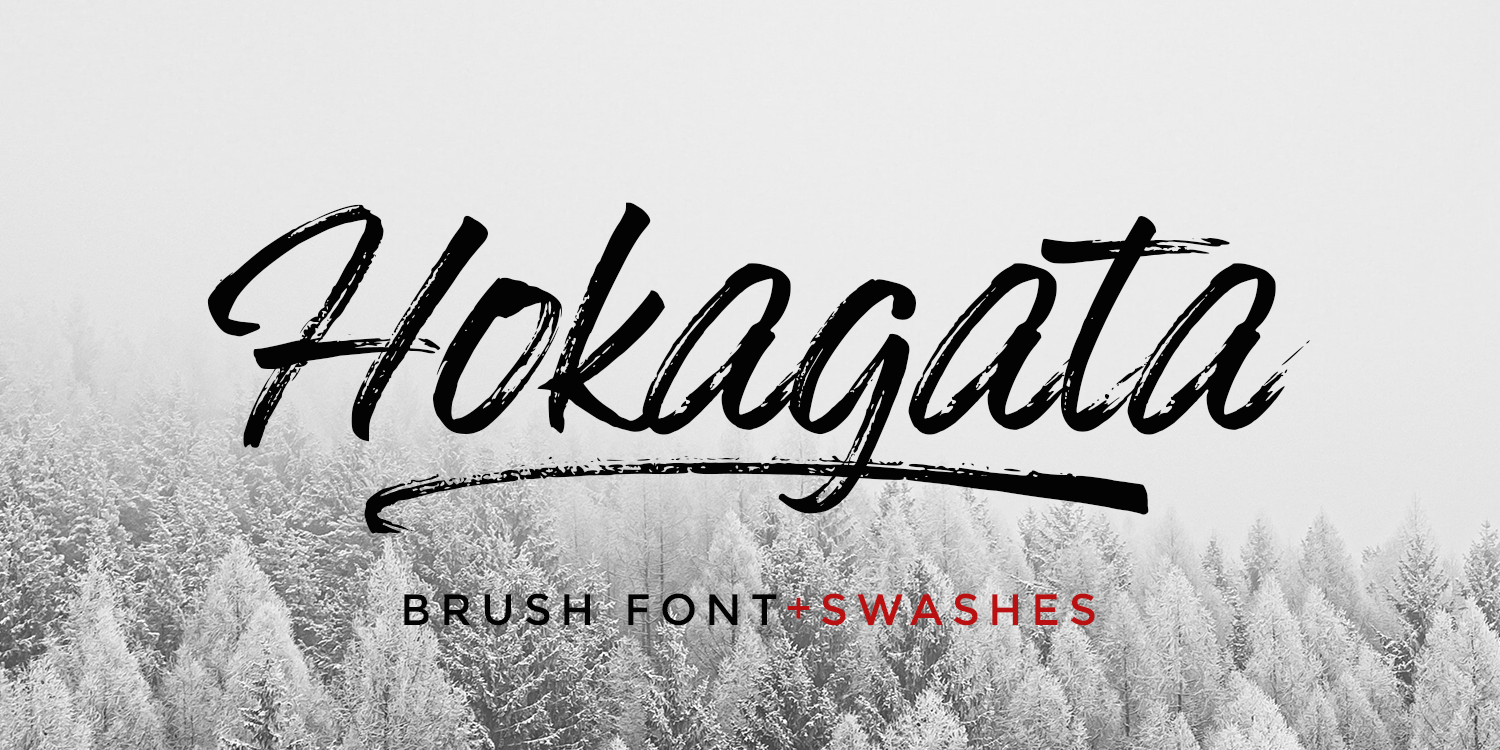
The Hokagata Brush Font excels in various design applications including Japanese cultural branding, traditional sushi restaurant signage, martial arts academy communications, zen meditation center materials, authentic Japanese tea house identities, anime-inspired promotional designs, traditional calligraphy project layouts, Japanese garden center marketing, cultural festival promotions, and distinguished Asian cultural projects that demand Japanese elegance and brush sophistication.
What makes the Hokagata Brush Font exciting is its authentic embodiment of Japanese brush calligraphy and traditional artistic heritage through letterforms that capture the essence of ancient Japanese writing traditions and the meditative flow of brush painting. This typeface demonstrates exceptional cultural depth through carefully crafted characters that suggest the fluid motion of traditional Japanese brushwork, the spiritual discipline of calligraphic practice, and the timeless beauty that defines authentic Japanese artistic expression. The font's Japanese personality makes it perfect for cultural institutions and Japanese businesses seeking to communicate cultural authenticity, artistic tradition, and the kind of meditative elegance that honors Japanese heritage through typography that literally flows with traditional brush mastery.
The Hokagata Brush Font family typically includes flowing weight variations that preserve the Japanese brush aesthetic, featuring organic stroke styles and extended character sets supporting Japanese linguistic requirements and cultural applications. These family options often include traditional alternates with enhanced calligraphic characteristics, Japanese symbols, and cultural decorative elements that provide designers with comprehensive tools for creating authentically Japanese typography that celebrates brush artistry while maintaining contemporary design appeal and cultural sensitivity.
Cultural professionals and Japanese heritage organizations consistently select Hokagata Brush Font Free Download for projects requiring typography that communicates Japanese authenticity and brush mastery. This typeface delivers exceptional performance in cultural marketing, Japanese branding, and traditional communications where establishing cultural credibility and demonstrating respect for Japanese artistic traditions is essential for community trust. The font's brush character makes it particularly effective for martial arts and meditation applications. Download Hokagata Brush Font Free Download today to access this culturally rich typeface that transforms Japanese communications with its brush elegance and traditional sophistication, creating compelling cultural experiences that honor the magnificent artistic heritage of Japanese calligraphy while celebrating the meditative beauty that defines authentic Japanese brush painting and cultural expression.